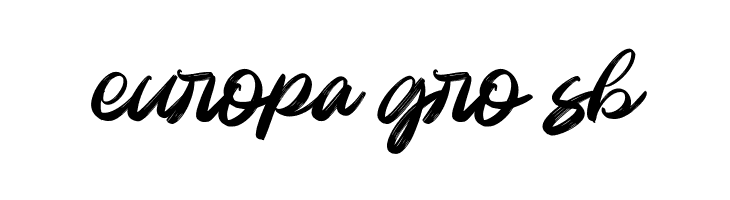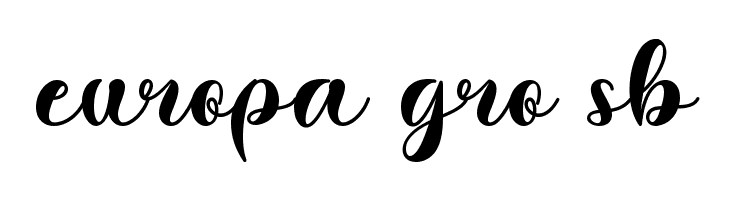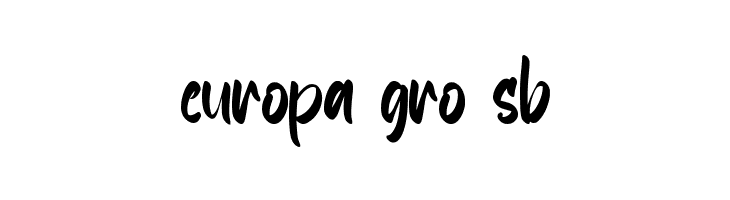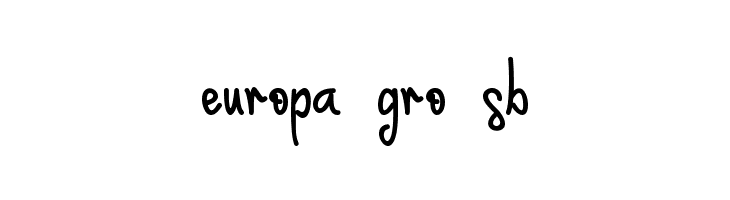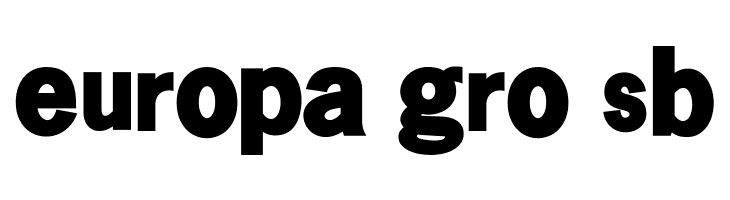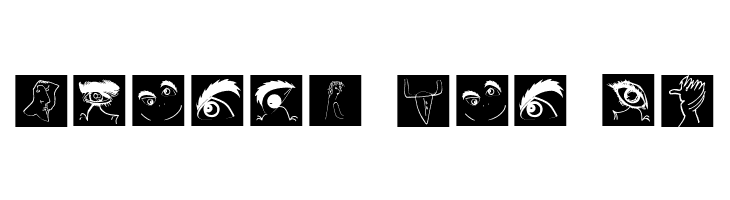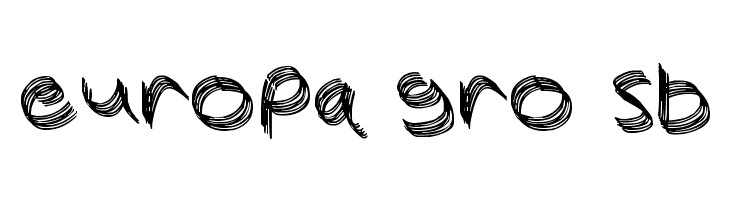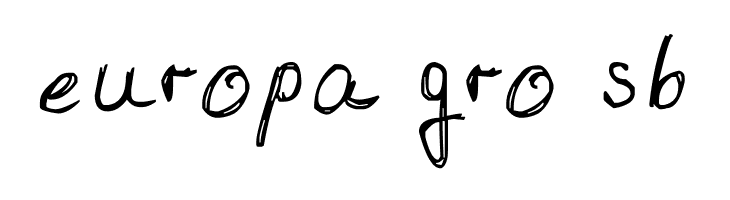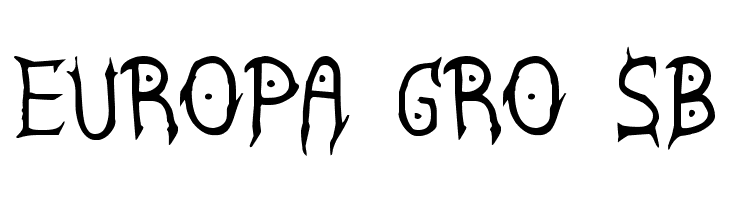
A pictorial, cartoon-style decorative font with unique illustrations for each character.
A sketch-like, hand-drawn font with dynamic and textured strokes.
A bold, sans-serif font with thick, uniform strokes and strong visual impact.
A playful, handwritten font with bold, uneven strokes and a dynamic flow.
Playful handwritten script with tall, narrow uppercase letters.
A whimsical and playful script font with decorative swashes.
A bold, brush-style script font with high contrast and dynamic strokes.
An abstract, artistic font with doodle-like characters and surreal illustrations.
A gothic, decorative font with sharp, thorn-like edges and a dramatic style.